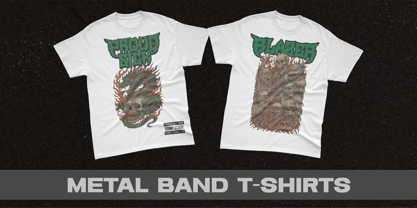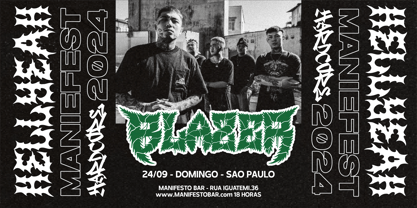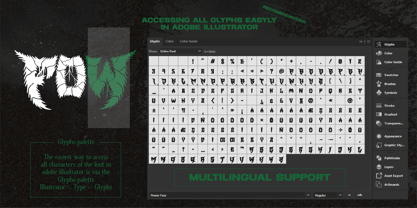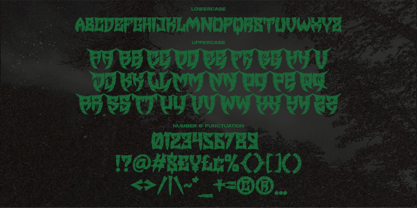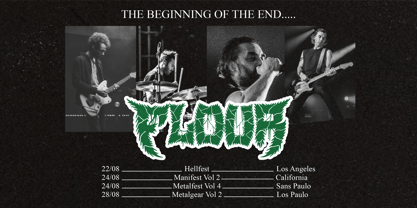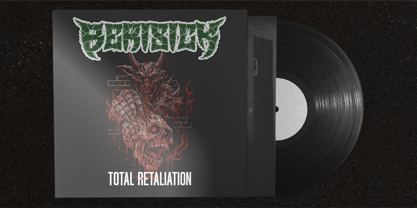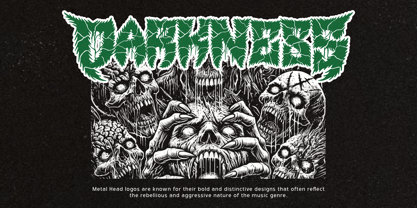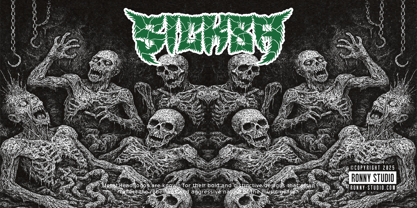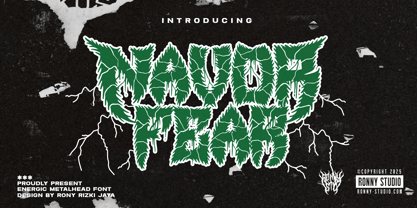
Navor Fear
⚡ Unleash raw chaos with Navor Fear, an electrifying metalhead font crafted for bold, rebellious design. Fueled by death metal and hardcore energy, this font delivers wild, aggressive lettering—perfect for projects that demand intensity and edge.
🔥 Ideal For:
🔥 Extreme Metal Band Logos & Album Art
🔥 Horror & Underground Posters
🔥 Tattoo-Inspired Apparel & Merch
🔥 Dark YouTube Thumbnails & Social Content